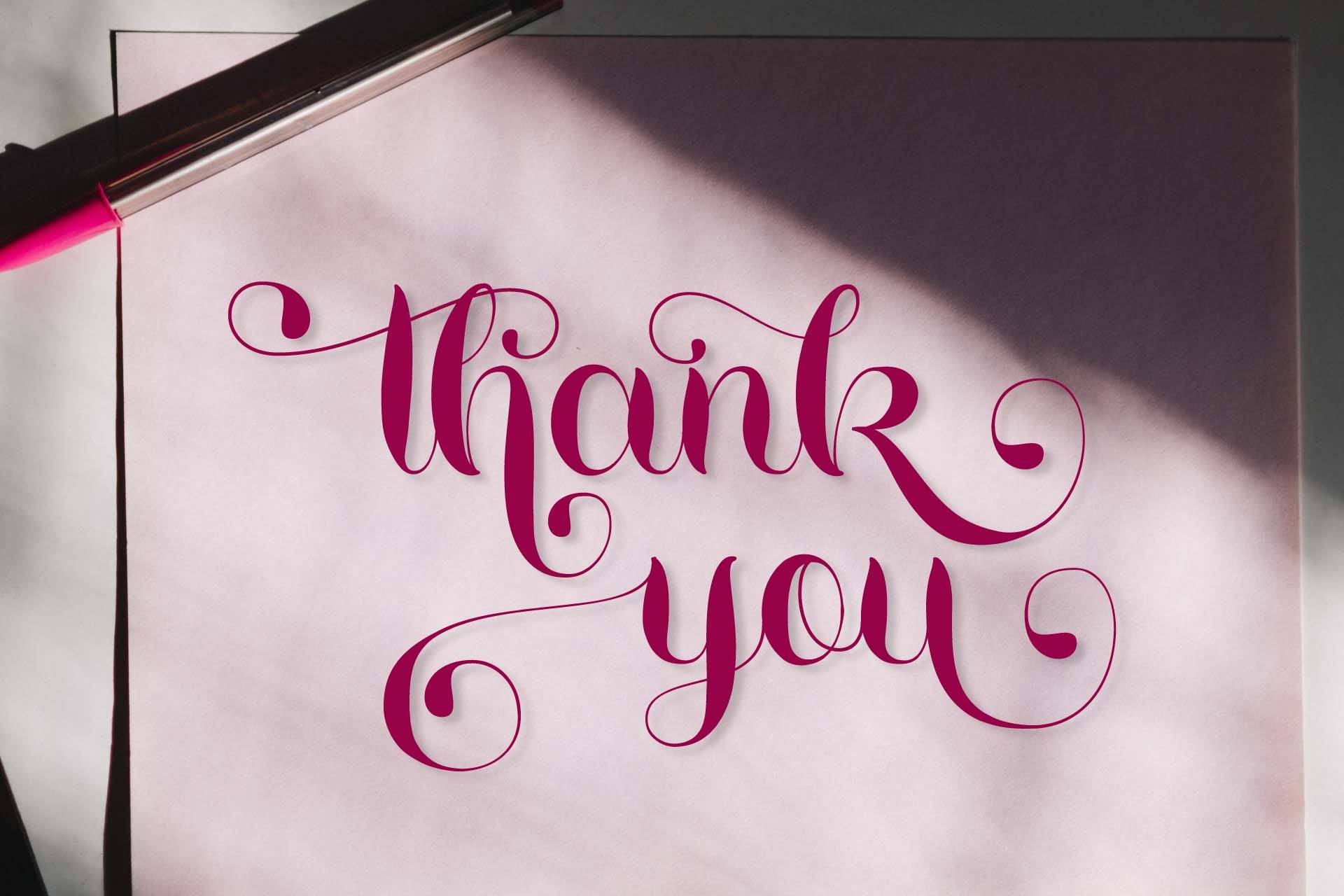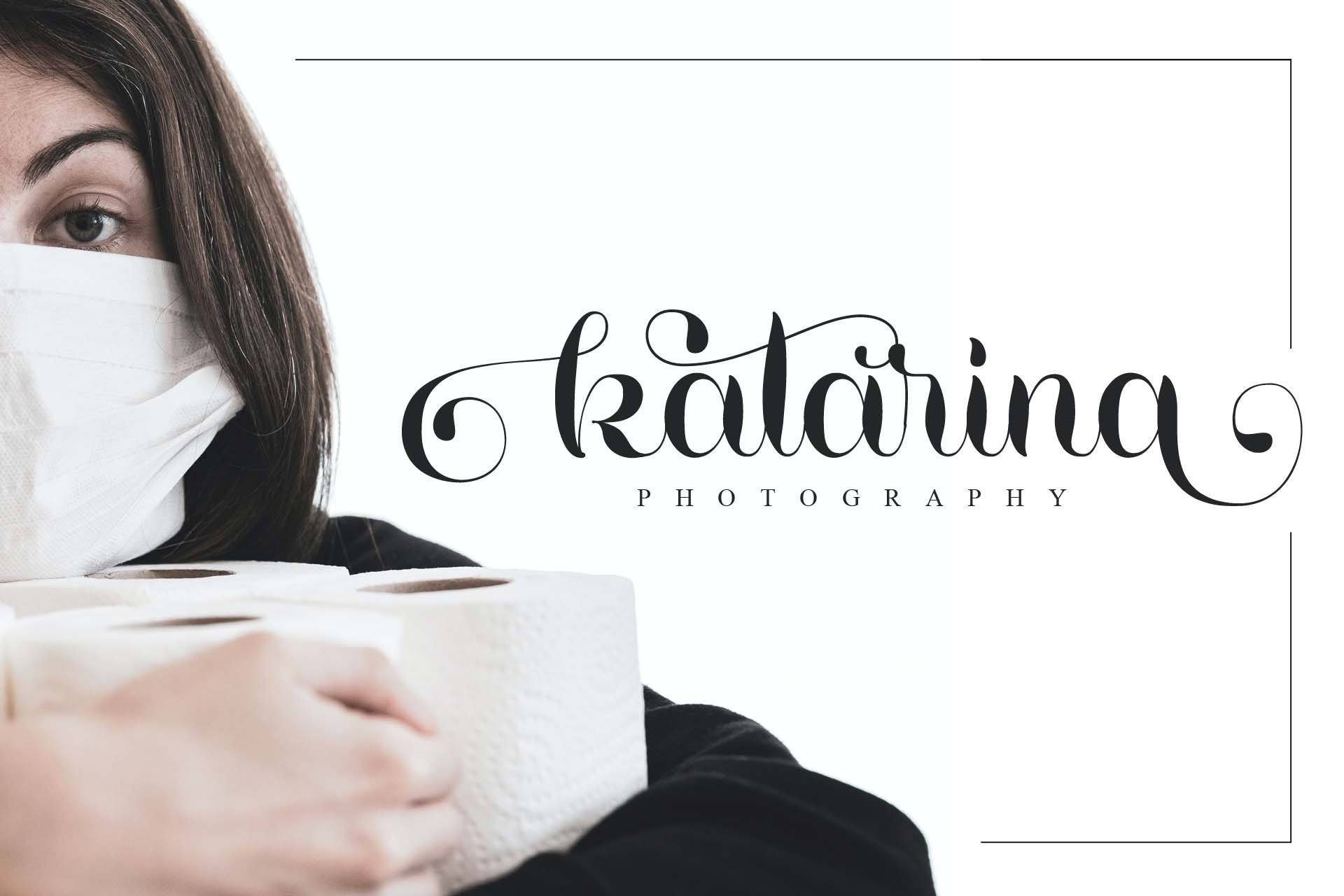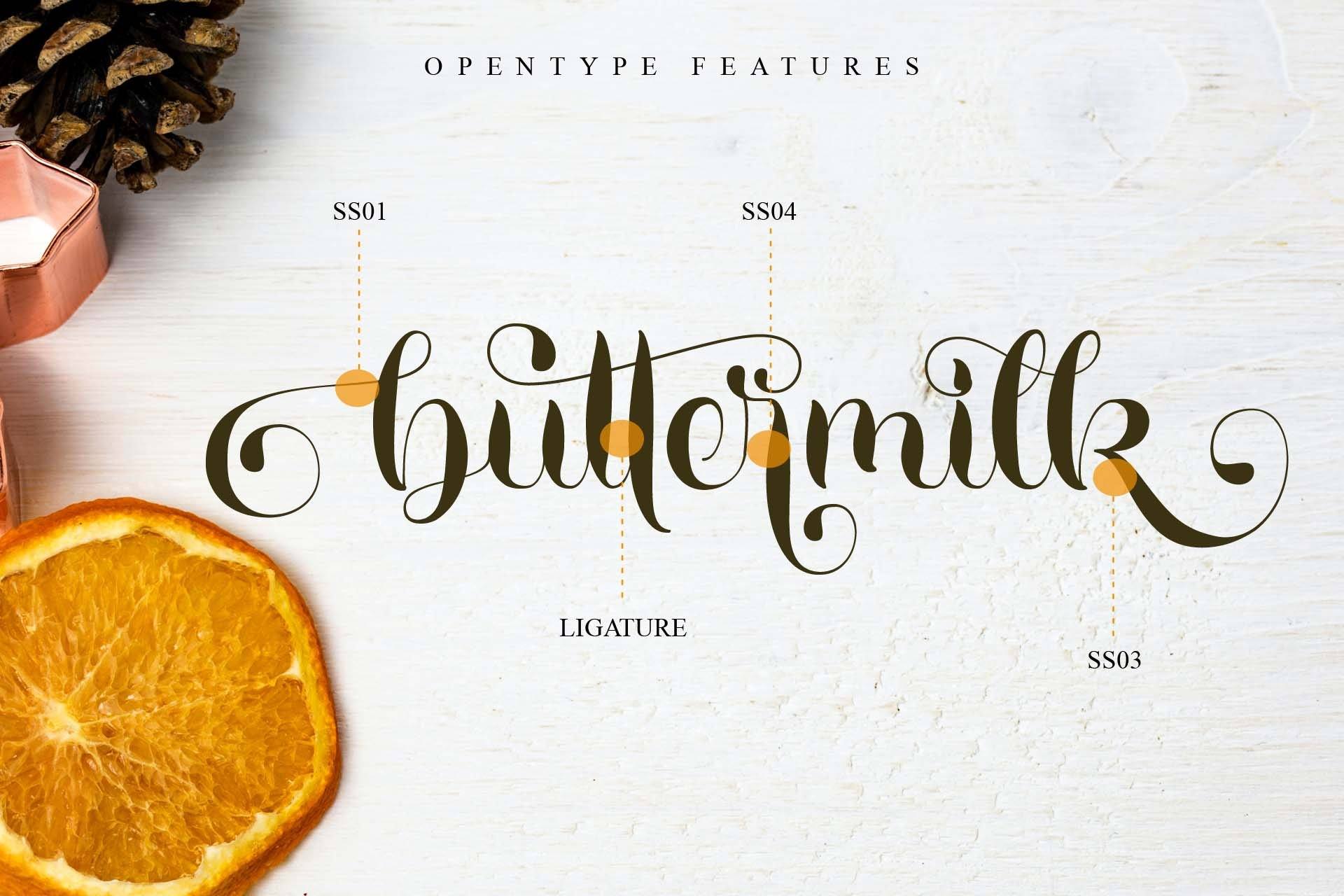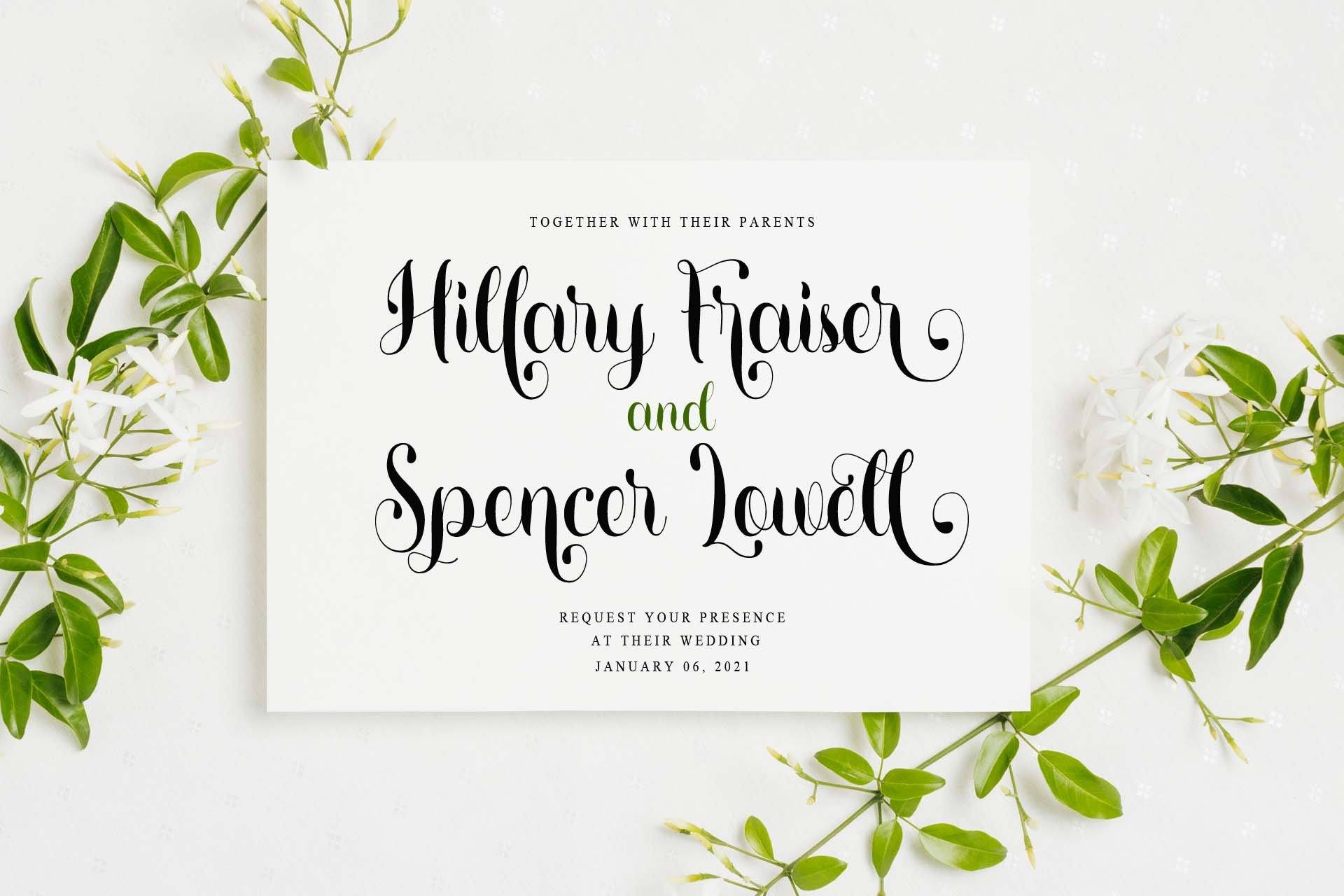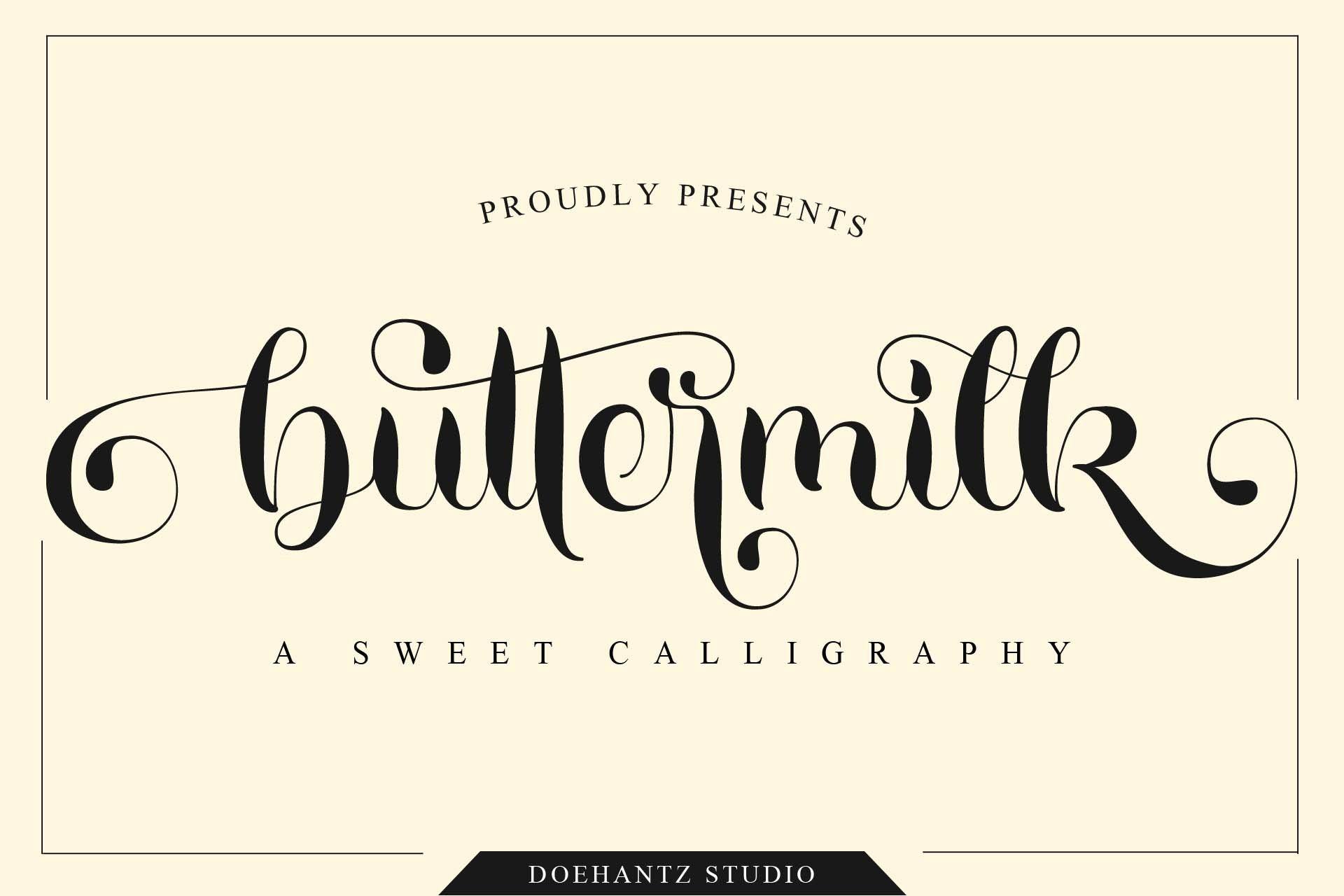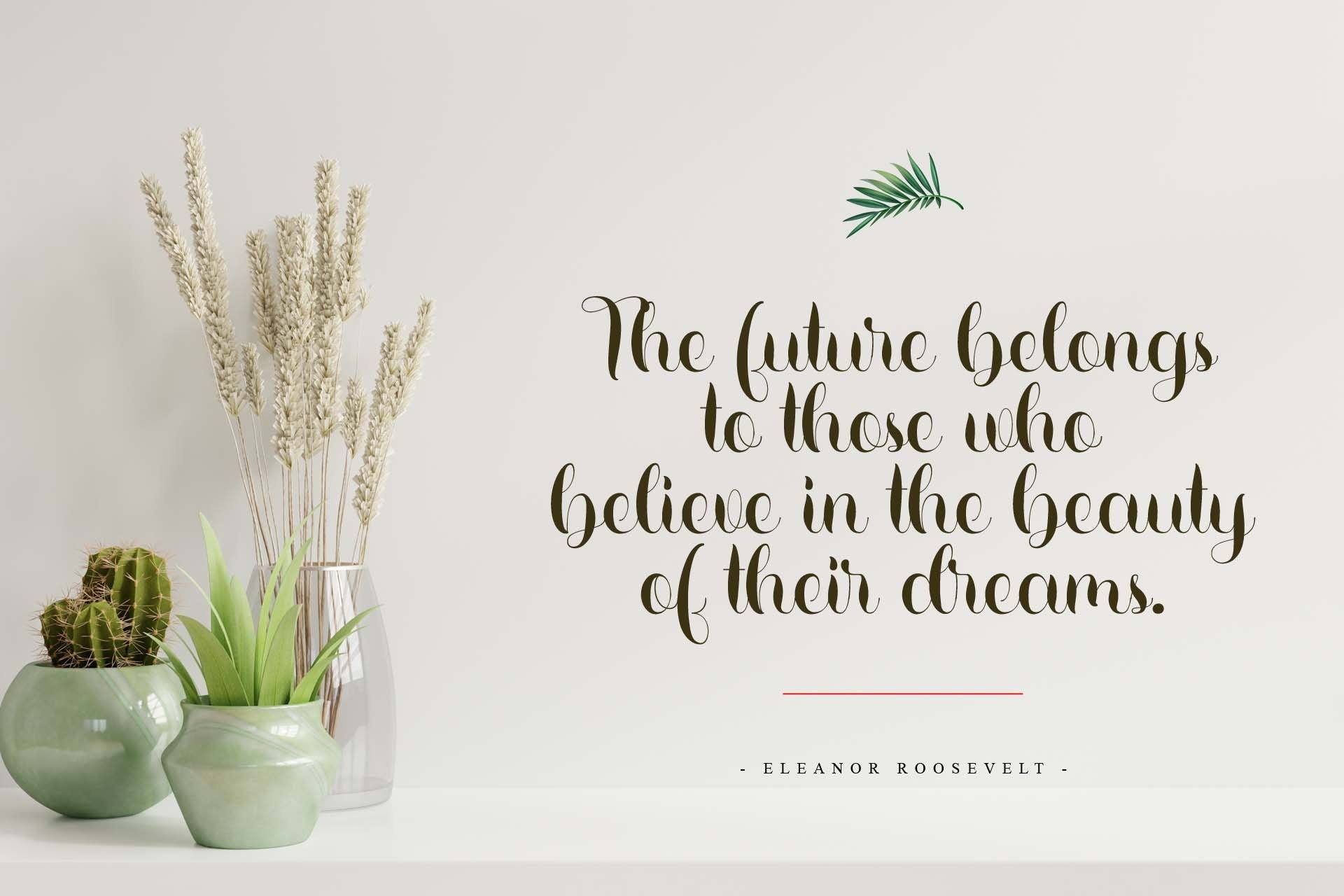
Buttermilk
About Buttermilk
Hello… Introducing our latest product, Buttermilk. Buttermilk is sweet, elegant, and looks gorgeous. Alternates of this font makes perfect for many design projects such as lettering, greeting cards, branding, business cards, quotes, posters, stickers, blogs, logos, weddings, signage, packaging, birth announcements, photo overlays, wall art, printed materials, bags, t-shirts and much more. . . ! This font also supported PUA encoded. Access Silhouette Studio compatible font characters, Cricut Design Space.Just copy and paste alternative characters using Character Map (Windows), Nexus Fonts (Windows), Font Book (Mac) or a software program like PopChar (for Windows and Mac). Thank You Happy Designing !